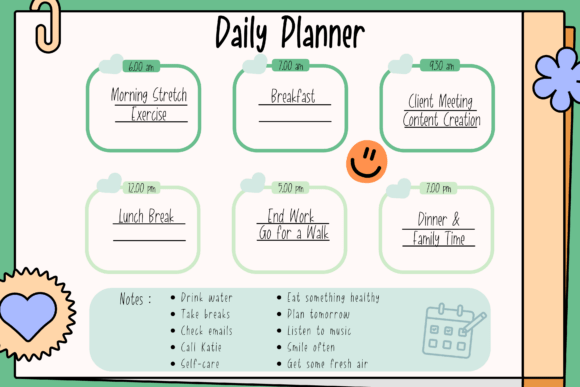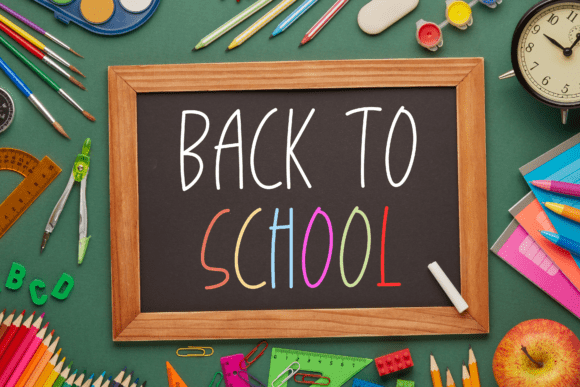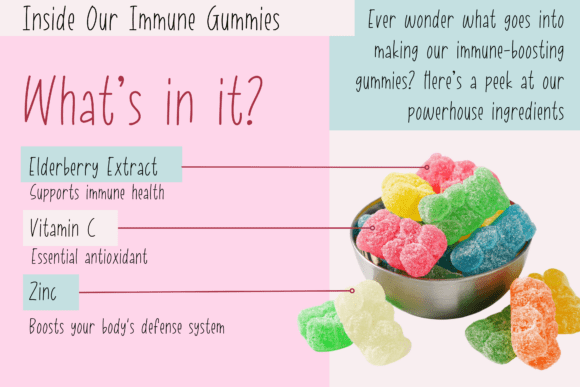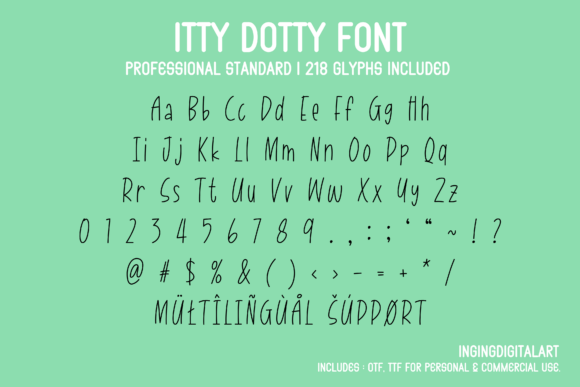
Introduction to Itty Dotty Font
Do you remember the thrill of receiving a handwritten note from a loved one? The uneven strokes, the playful flourishes, and the unbridled joy that comes with it? That’s exactly what the Itty Dotty Font embodies – a dash of childhood innocence and spontaneity that brings warmth to any design. As a designer, you’re always on the lookout for that special something to elevate your creative project, and this font is sure to deliver.
With its high-quality, transparent background, and friendly curves, Itty Dotty Font is an ideal addition to any design resource. Whether you’re working on a free download for kids or a playful branding campaign, this font adds a delightful, doodle-inspired twist that’s sure to capture attention. And the best part? It’s free to download and use in your next creative project, making it an invaluable resource for designers of all levels.
Key Features of Itty Dotty Font
- Unique and playful design, perfect for creative projects requiring a high quality, whimsical font.
- Perfect for use in creative projects, such as children’s books, greeting cards, and other design elements requiring a fun and playful touch.
Honest Review: Itty Dotty Font
I recently had the chance to work with the Itty Dotty Font, and I must say it’s been a game-changer for my creative projects. This high-quality font is perfect for adding a playful touch to any design.
That being said, I do have a few minor complaints. The font can be a bit overwhelming if used too liberally, and some of the characters can be a bit tricky to read at small sizes. ⚠️ However, these are minor limitations that can be easily worked around.
Overall, I’m really impressed with the Itty Dotty Font and would highly recommend it to any designer looking for a fun and playful font to add to their design arsenal.